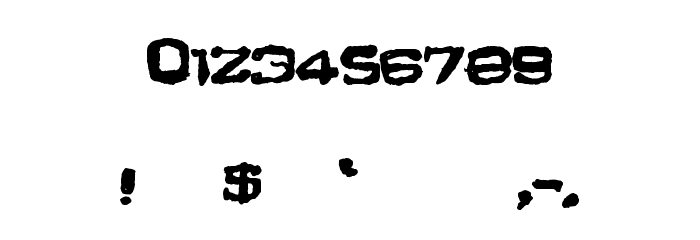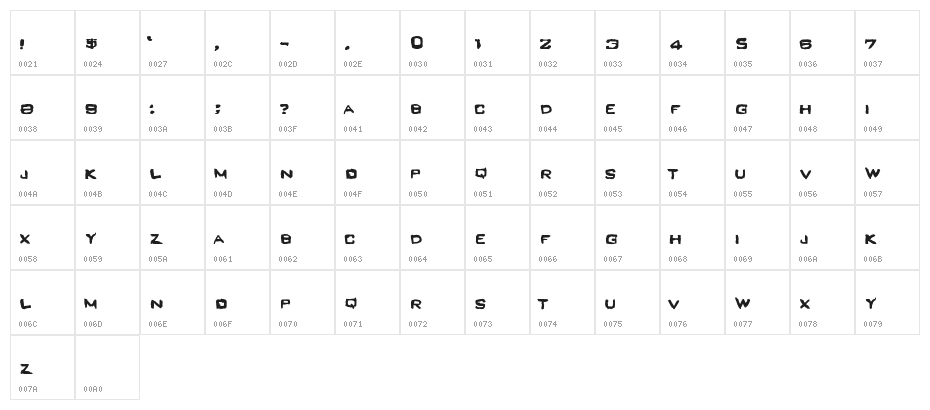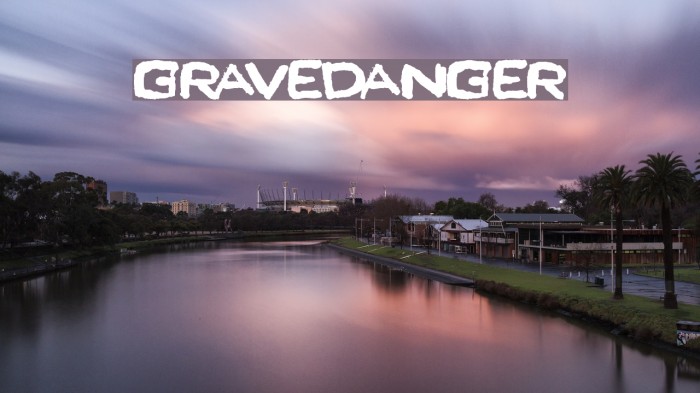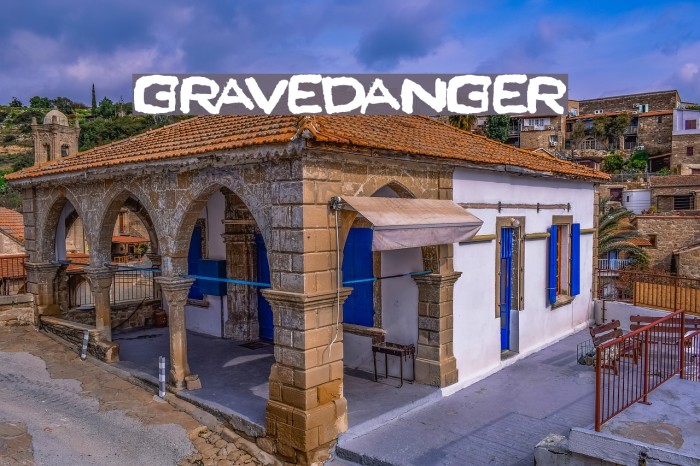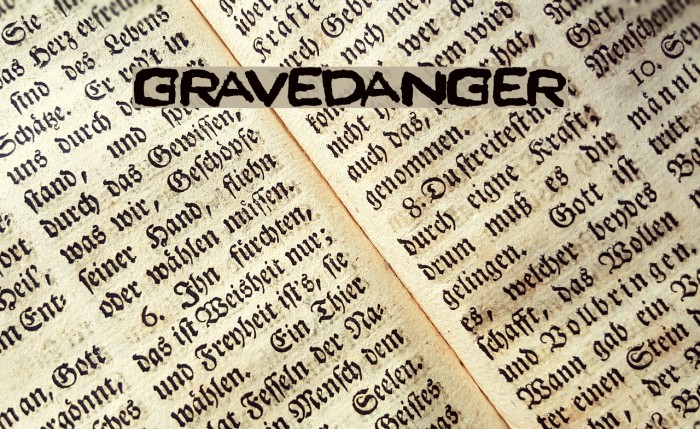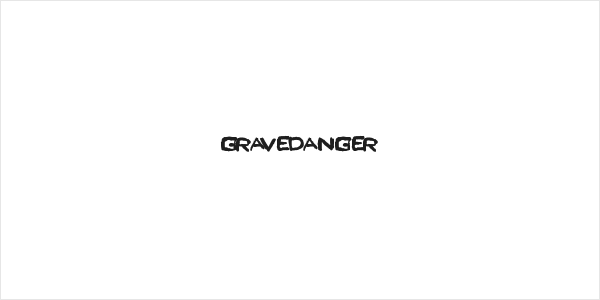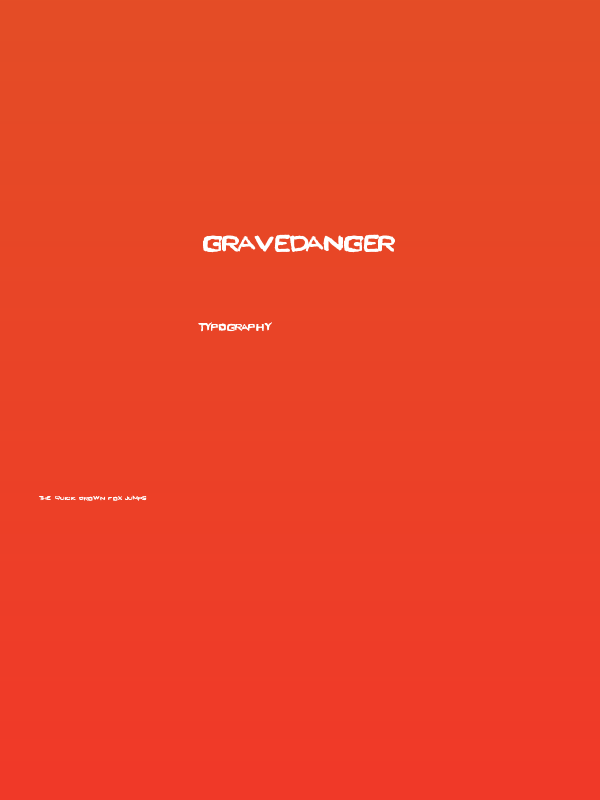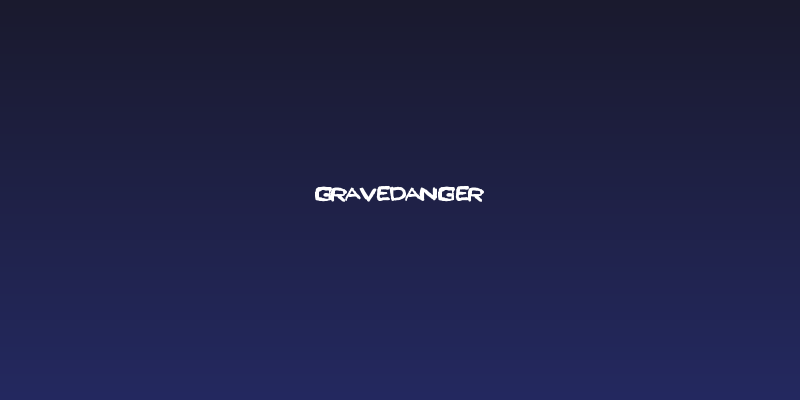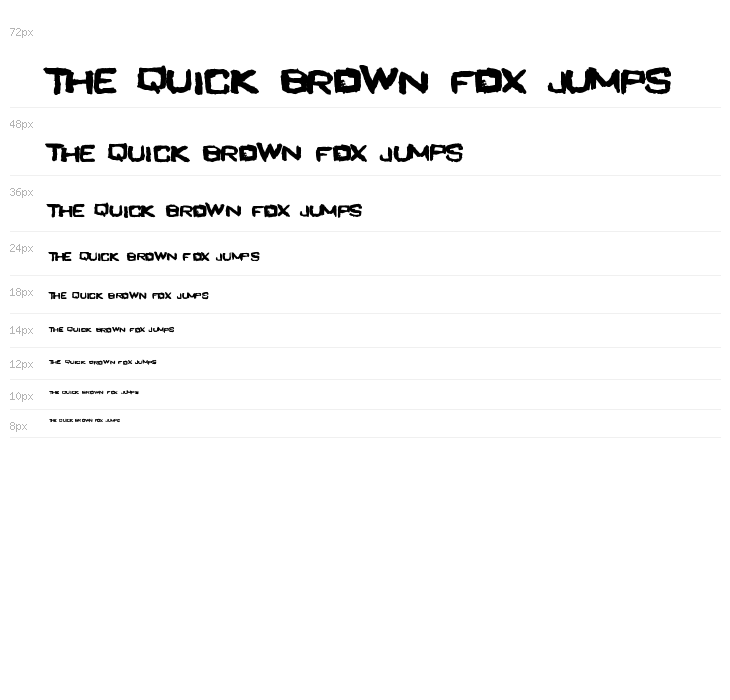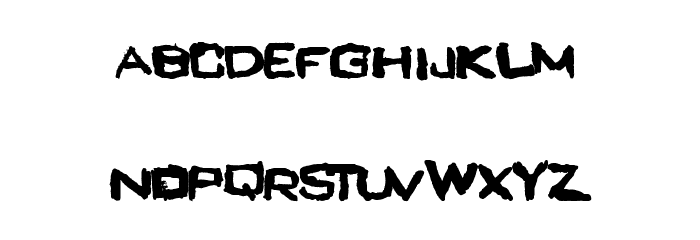
GraveDanger Font
GraveDanger Description
This font features a rugged, distressed appearance with uneven edges and a hand-drawn feel. The characters are bold and impactful, with a rough texture that gives them a unique, edgy look. The uppercase and lowercase letters maintain a consistent style, while the numbers and special characters complement the overall design. This font's irregularities and bold strokes make it stand out, offering a sense of urgency and intensity.
| Proposed Projects | Ideal for horror-themed posters, edgy branding, album covers, and video game graphics. |